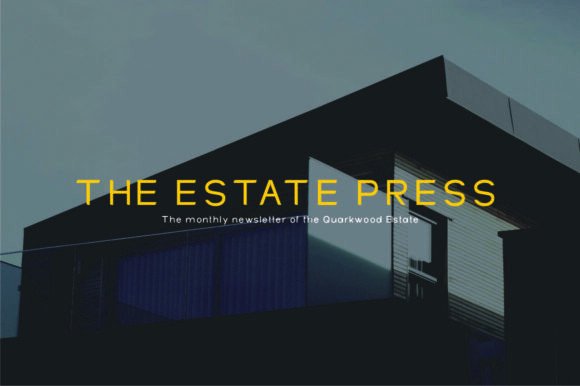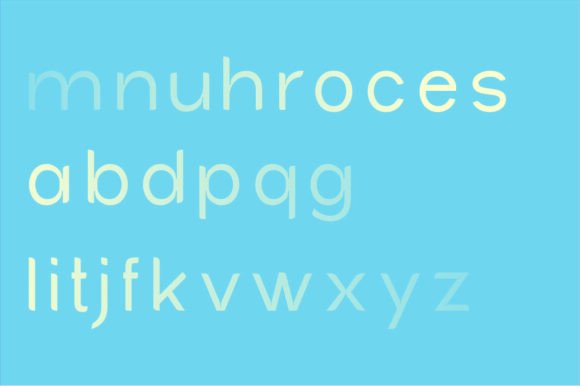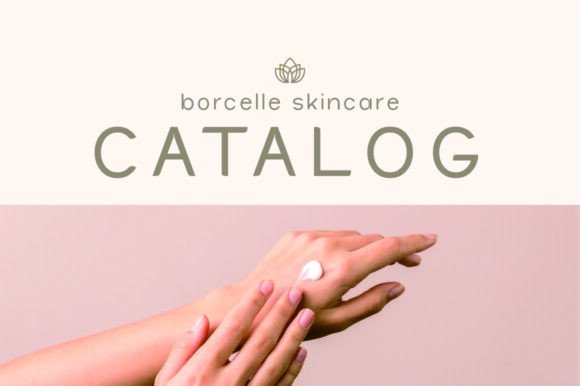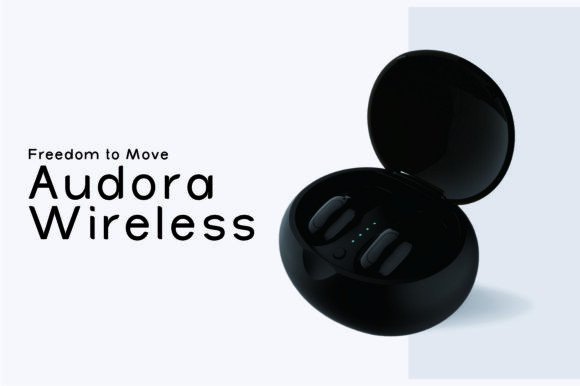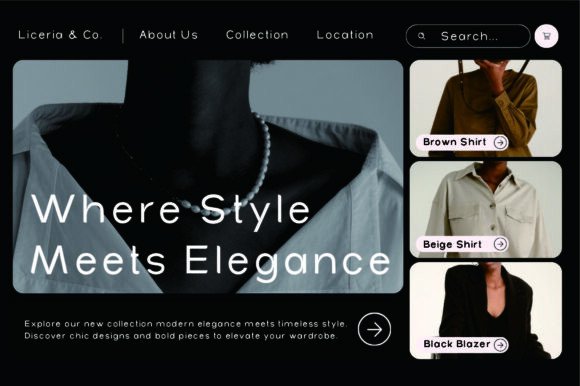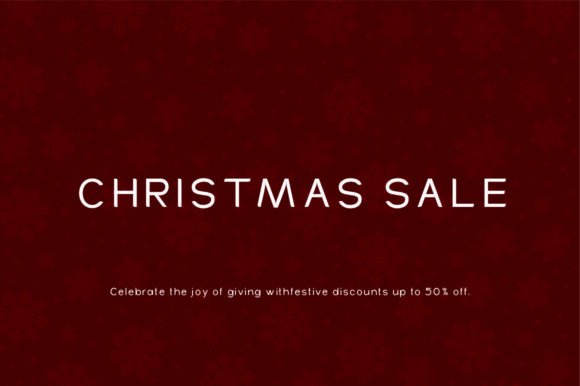
The Gratav Font: A Modern Sans Serif for Creative Minds
As a designer, I’ve had my fair share of frustrating moments when searching for the perfect font. I recall working on a project for a client who wanted a modern, clean look that would convey their brand’s professionalism and approachability. After hours of scouring through font libraries, I stumbled upon Gratav – a game-changing sans serif typeface that has since become a staple in my design toolkit.
First Impressions: What I Love About Gratav
Gratav has won me over with its:
- ✨ **Clarity and readability**: Its clean geometry and subtle humanist touches make it perfect for both digital and print media.
- ✅ **Versatility**: Gratav’s neutral character makes it suitable for a wide range of applications, from branding and logos to UI/UX design, editorial layouts, and corporate identities.
- 💡 **Refined simplicity**: Gratav’s minimal, precise, and timeless design makes it an excellent choice for headlines and body text alike.
- 🔥 **Bold yet approachable personality**: The font’s confident strokes and smooth curves give it a unique voice that’s both modern and professional.
Honest Review: A Few Quirks to Consider
While Gratav has won me over, it’s not without its limitations:
- 🤔 **Limited font weights**: Gratav’s range of font weights is somewhat limited, which may not be ideal for projects requiring a high level of typographic nuance.
- ⚠️ **Glyph support**: Some users have reported issues with glyph support in certain applications, although this is not a universal complaint.
The Story Behind Gratav
Gratav’s design inspiration stems from the intersection of modernism and humanism. Its creator aimed to craft a typeface that would embody the perfect balance of clean geometry and subtle nuance, making it suitable for a wide range of applications. While the exact details of Gratav’s design story are shrouded in mystery, its impact on the design community is undeniable.
Q: What is Gratav’s primary design inspiration?
A: Gratav’s design draws inspiration from modernism and humanism, blending clean geometry with subtle nuance.
Q: Is Gratav suitable for body text?
A: Yes, Gratav is highly readable and suitable for both headlines and body text.
Q: Does Gratav support OpenType features?
A: Yes, Gratav supports OpenType features, including stylistic alternates and glyphs, which can be accessed in compatible applications.